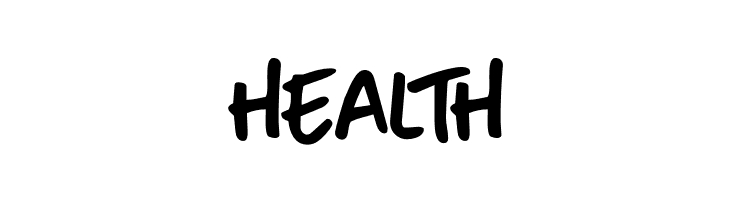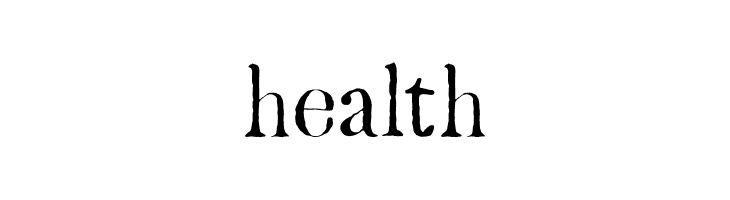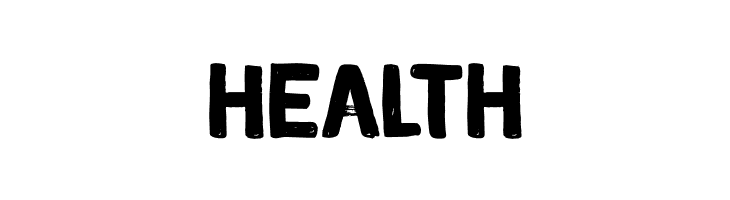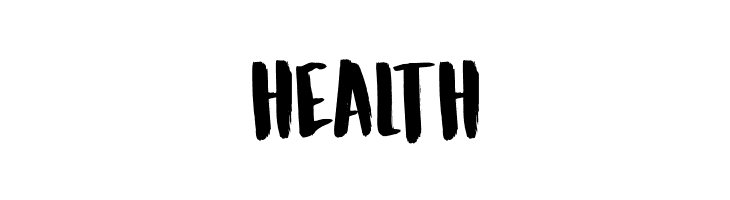
A bold, rugged font with a hand-crafted, rustic appearance.
A bold, brush-style font with an expressive and dynamic appearance.
A whimsical, hand-drawn font with a vintage charm and artistic flair.
A bold, textured, hand-drawn font with a chalk-like appearance.
A bold, hand-painted style font with textured brushstroke effects.
A playful, bold handwritten font with a whimsical and friendly style.